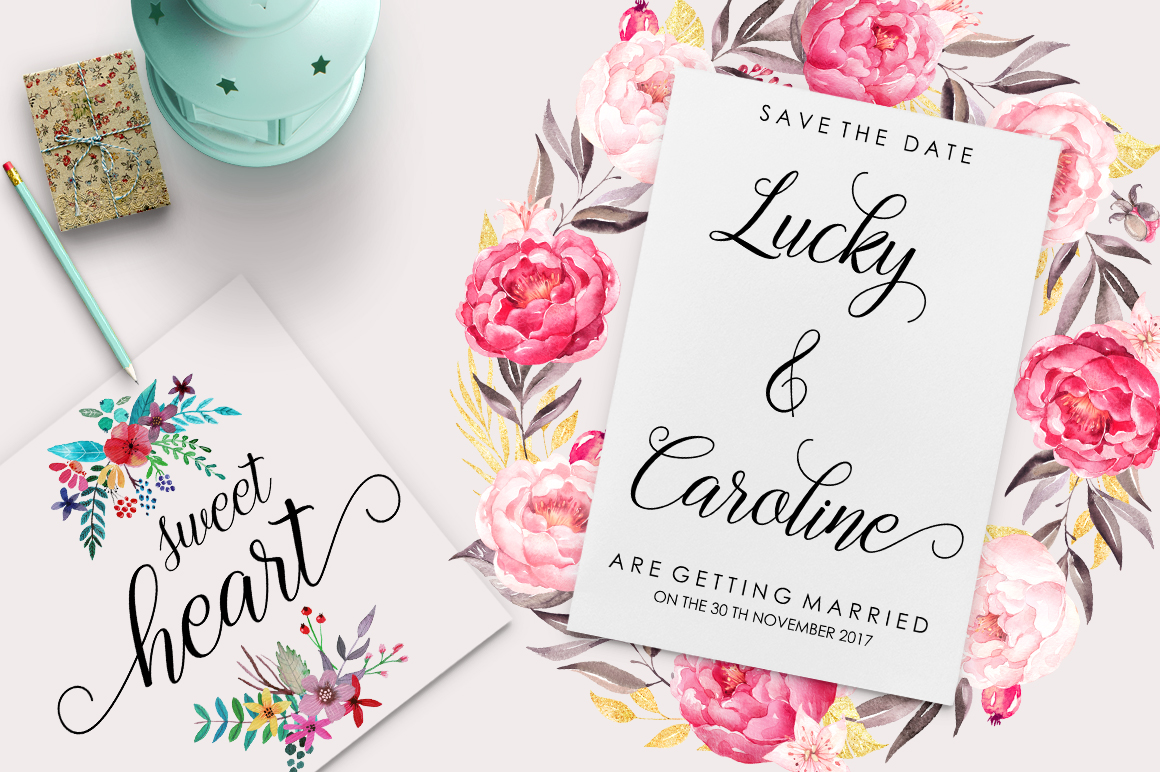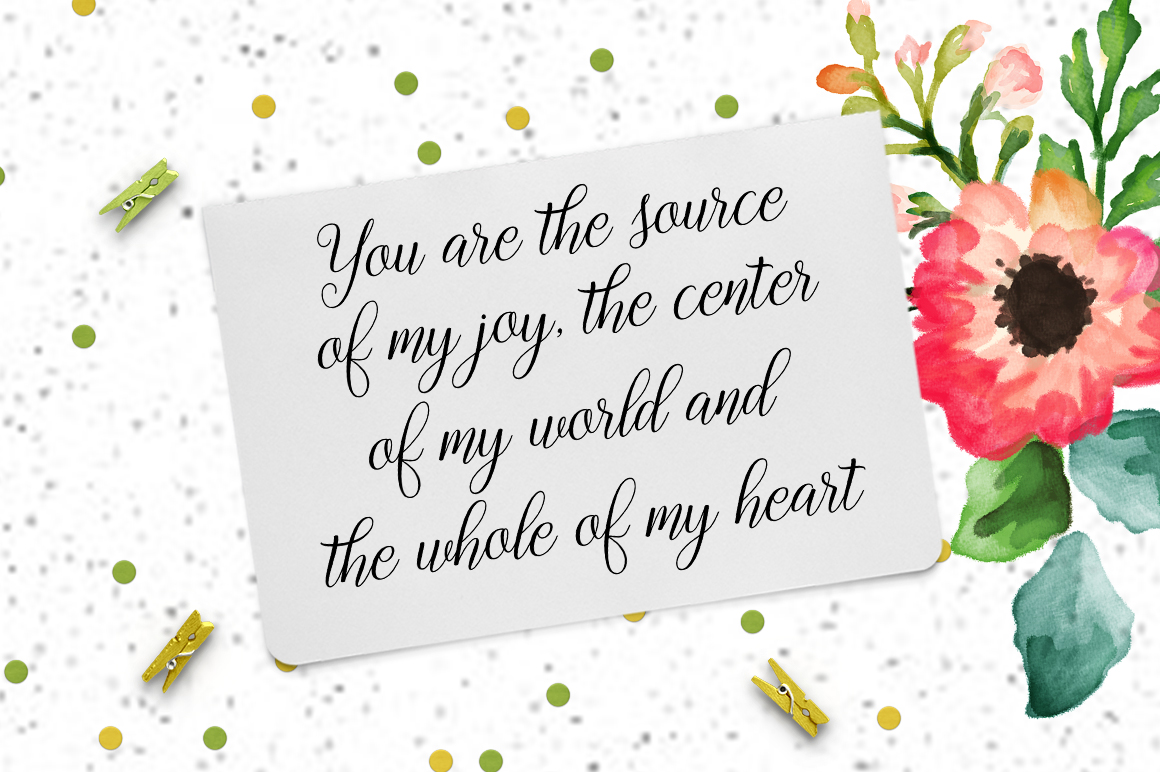
Gebrina Script Font
db-ku.com - Script & Handwritten -- Modern calligraphy at its finest, Gebrina is a standout script. Casual yet demanding, Gebrin is a great way to modernize your design and take it to the next level.